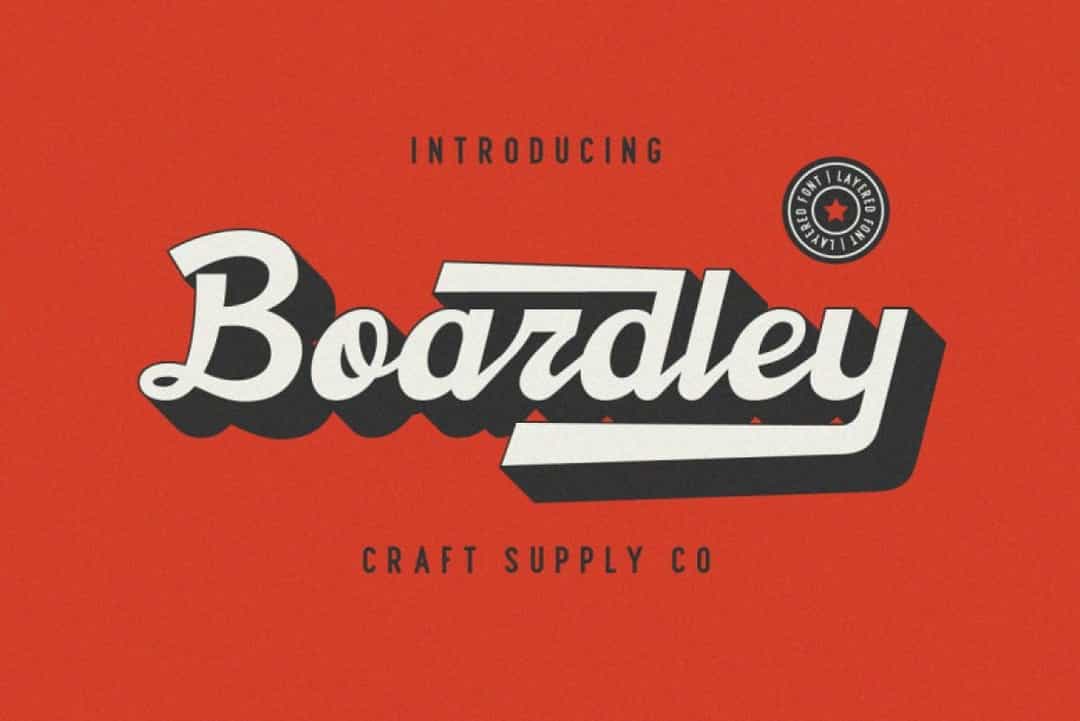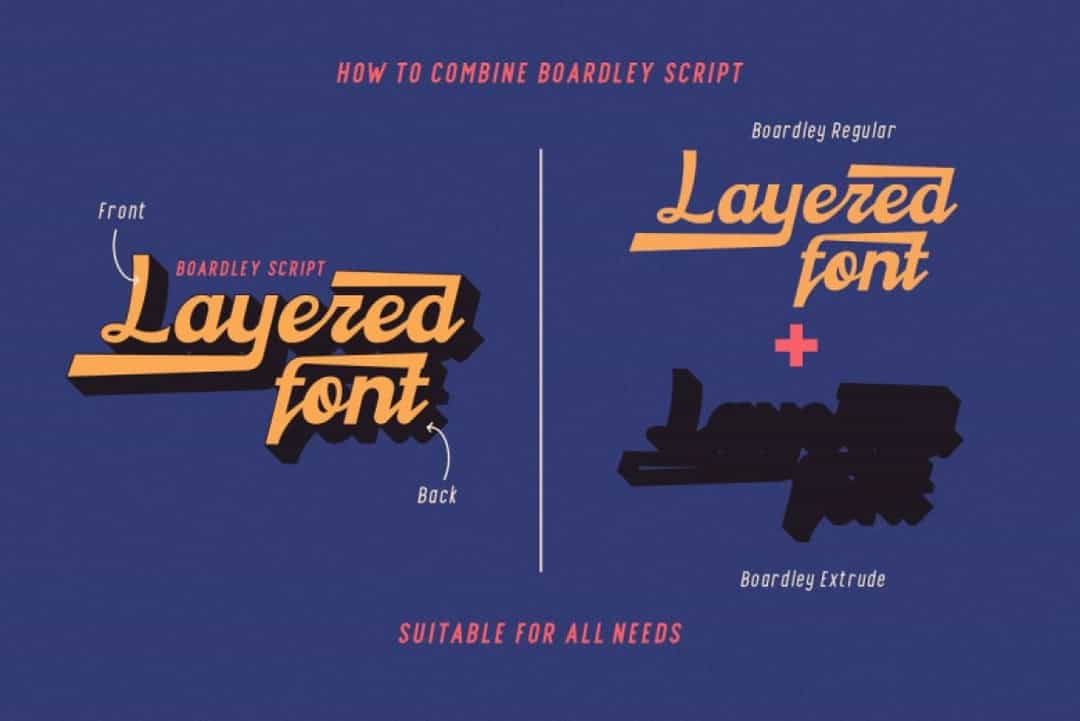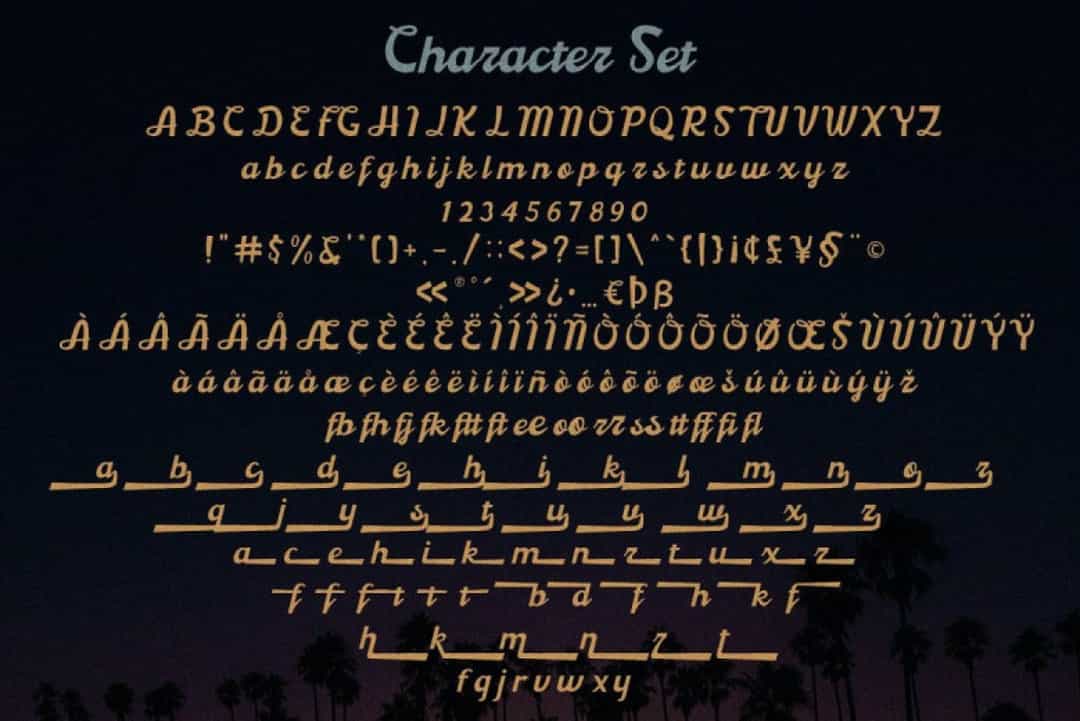
Boardley, a retro script-style display font in two layers, was created for advertising type in the-mid century. Boardley script is reminiscent of the styles of that period, making it ideal for posters, doorplates, billboards, cards, and all sorts of advertising. It’s ideal for logos, greeting cards, quotes, posters, branding, name card, stationery, design title, blog header, art quotes, typography art, modern envelope lettering, or book design.